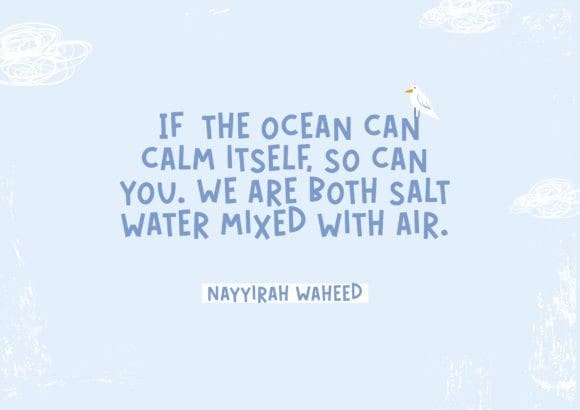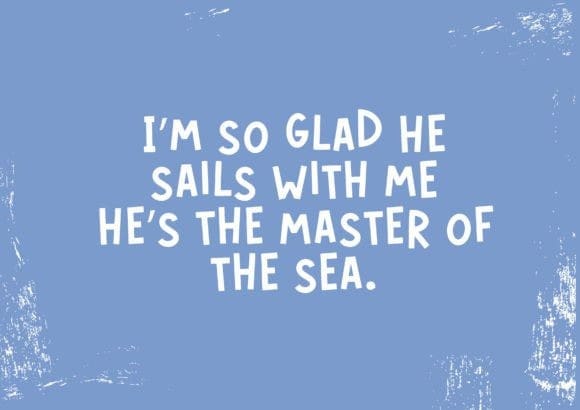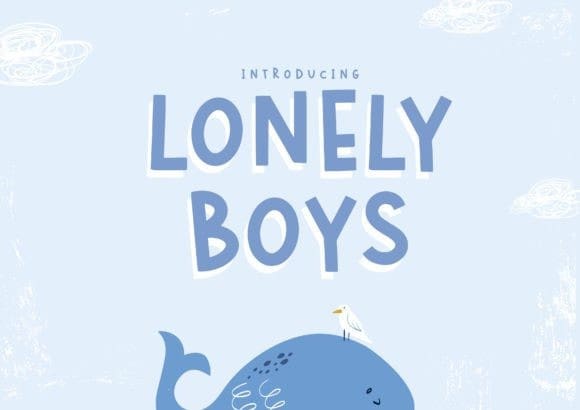
Lonely Boys Font
Lonely Boys Font is a whimsical and bold display font. It has a fun and cool vibe, making it great for crafting, titles, displays, and more. This original look will appeal to a wide range of crafty ideas, from letterheads and titles to stationery.